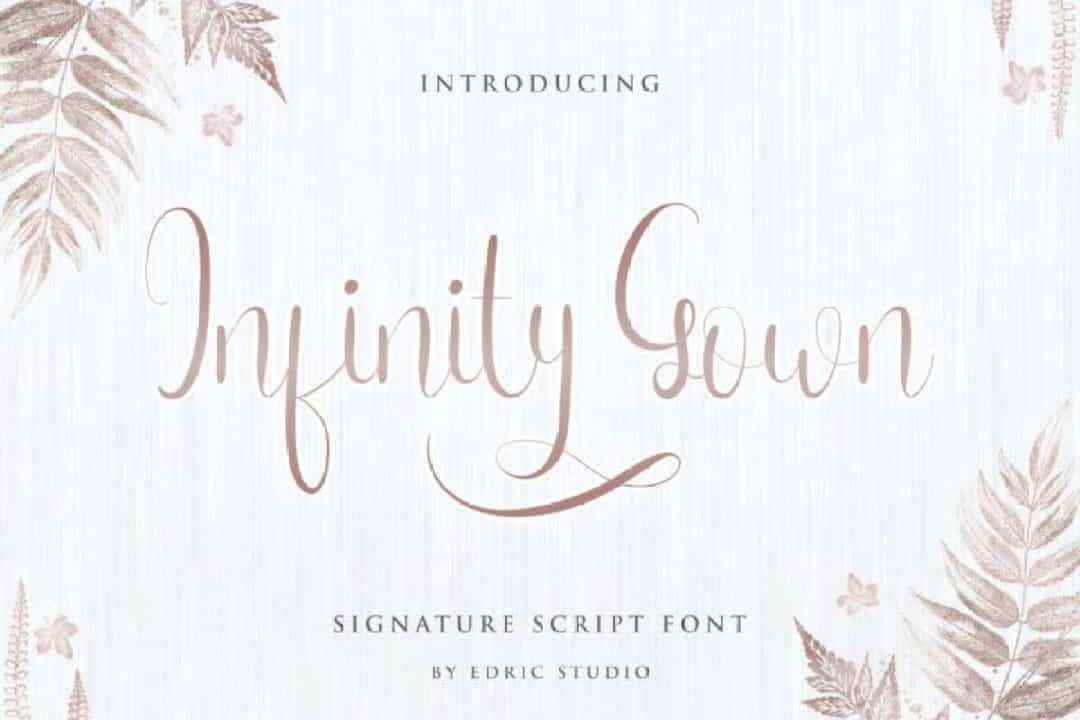
Discover Infinity Gown Calligraphy Script Font, part of the Calligraphy Script collection—a versatile and unique font perfect for adding a personal touch to your projects. Download it for free and enjoy crafting designs with style, from invitations to social media posts. This font is available exclusively for personal use, giving you the freedom to create without limits. Unlock your creativity with Infinity Gown Calligraphy Script Font today!
Infinity Gownis a handwritten calligraphy style typeface featuring beautiful characters set that is perfectly spaced with kerning. This font embodies elegance, classic, stylish sophistication and professional calligraphy; Infinity Gown font represents these characteristics perfectly. Infinity Gown Font is ideal for branding, logos, stationery and signage projects in many industries,